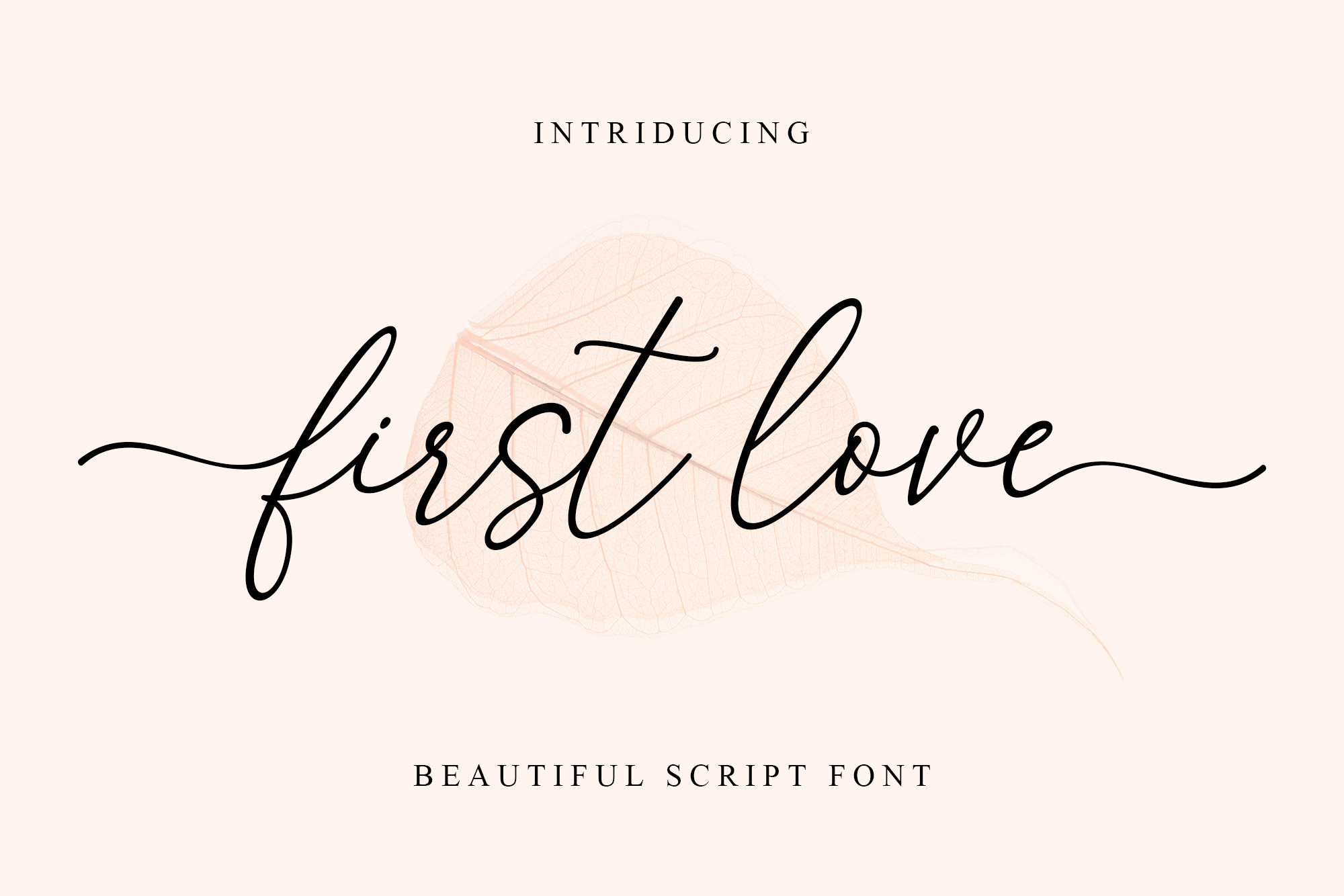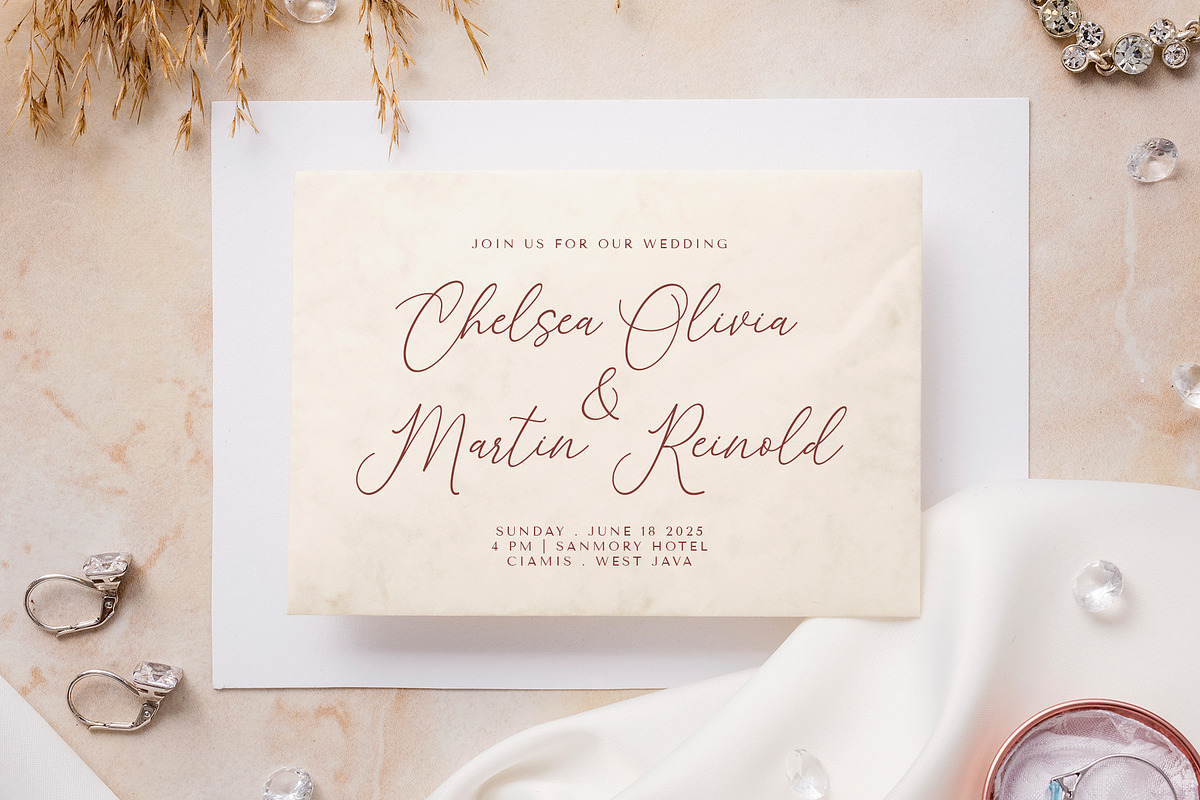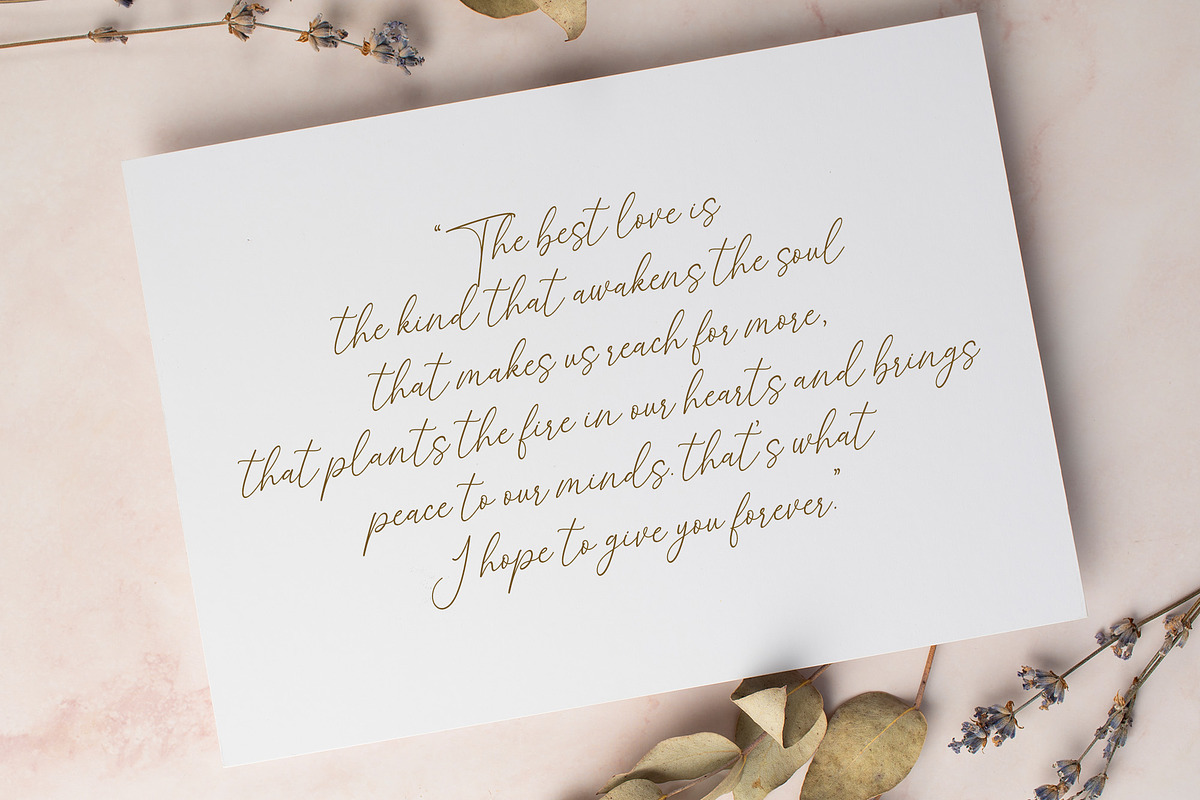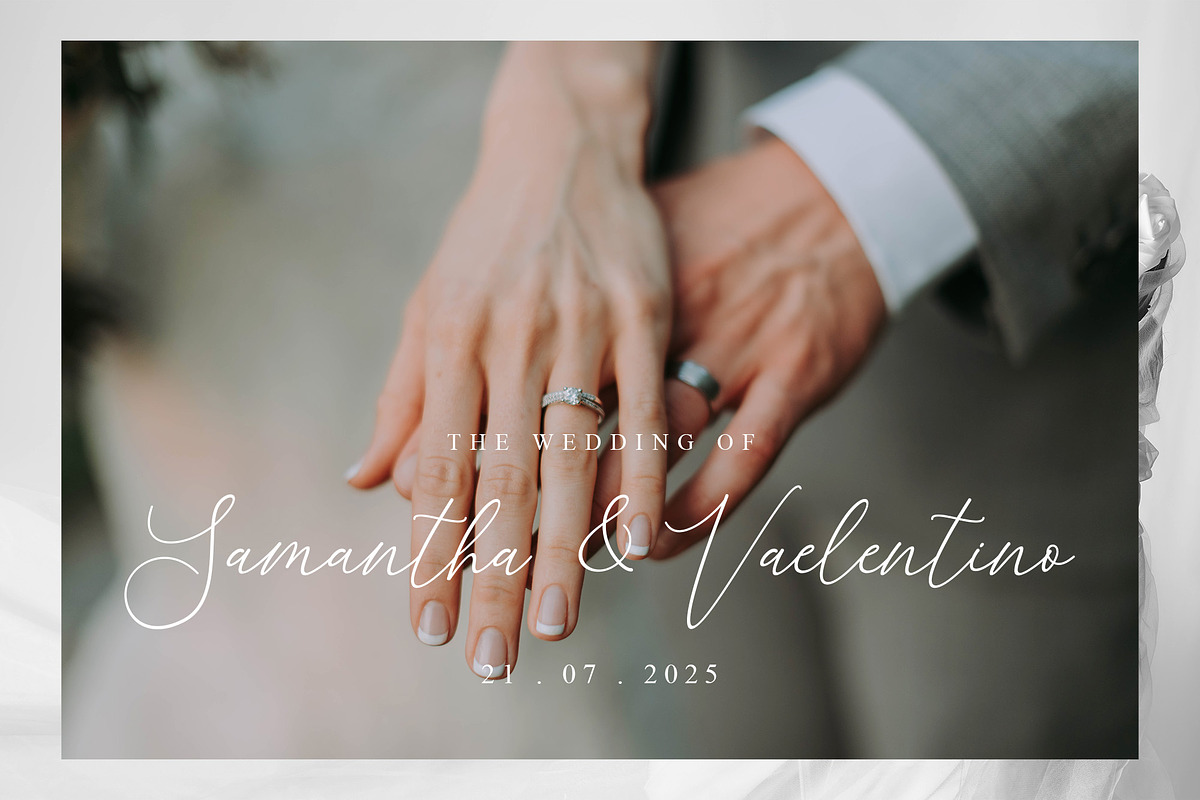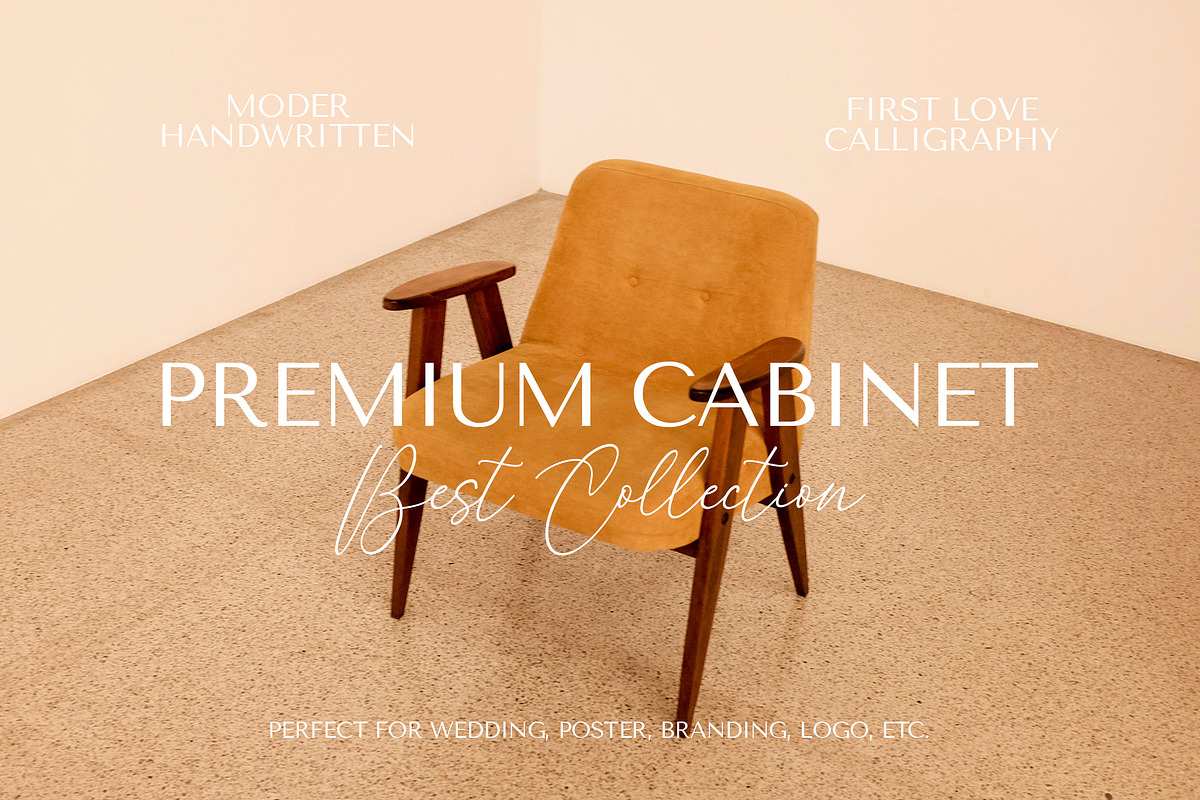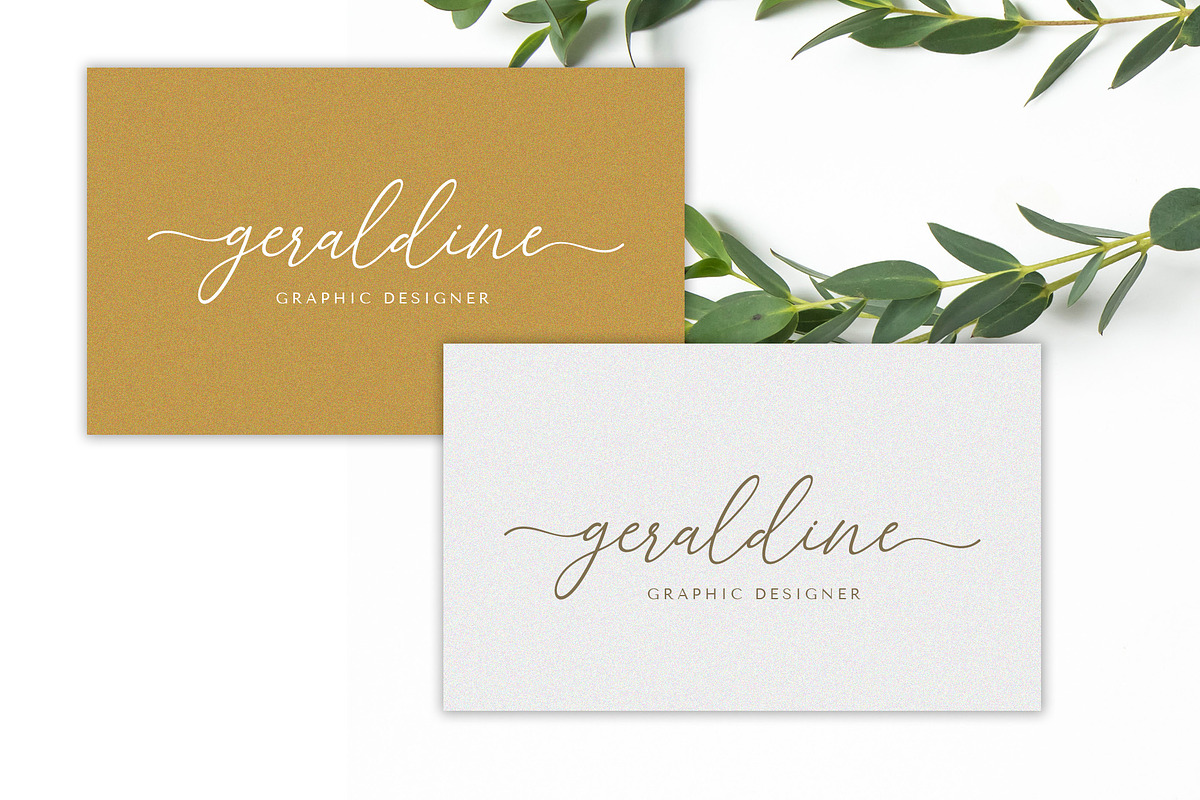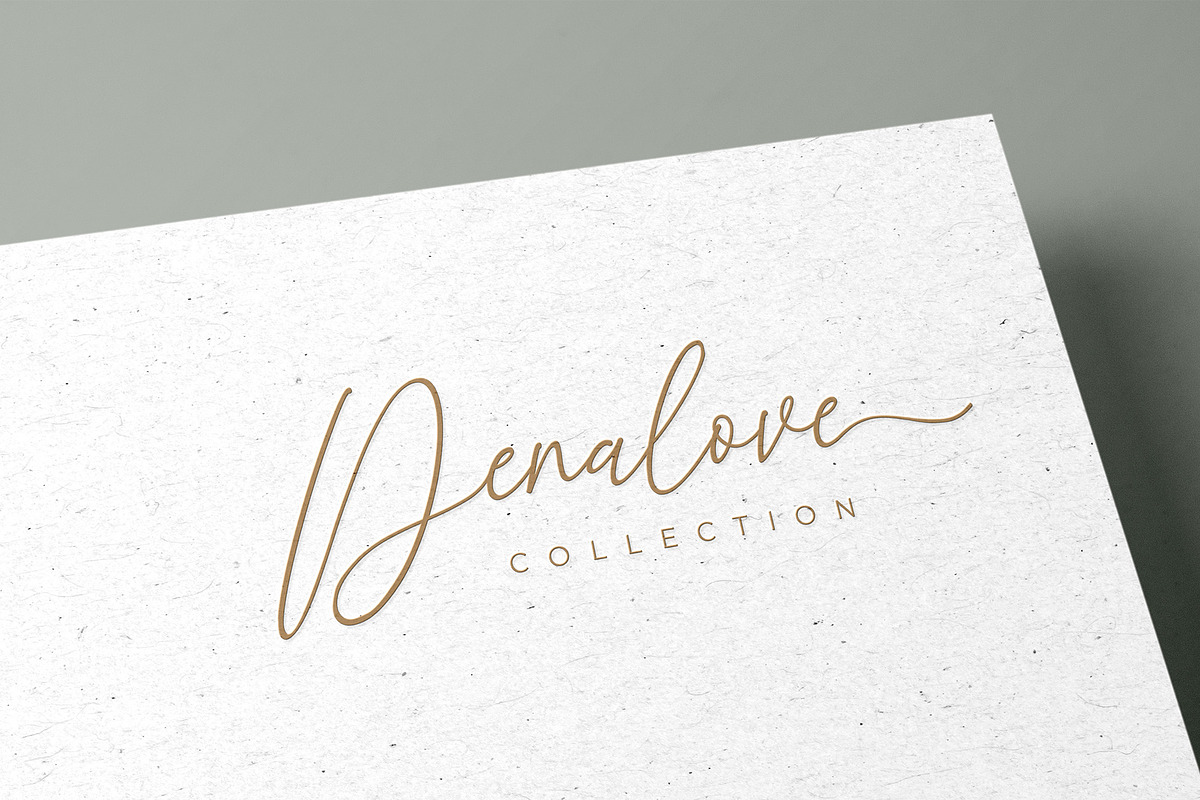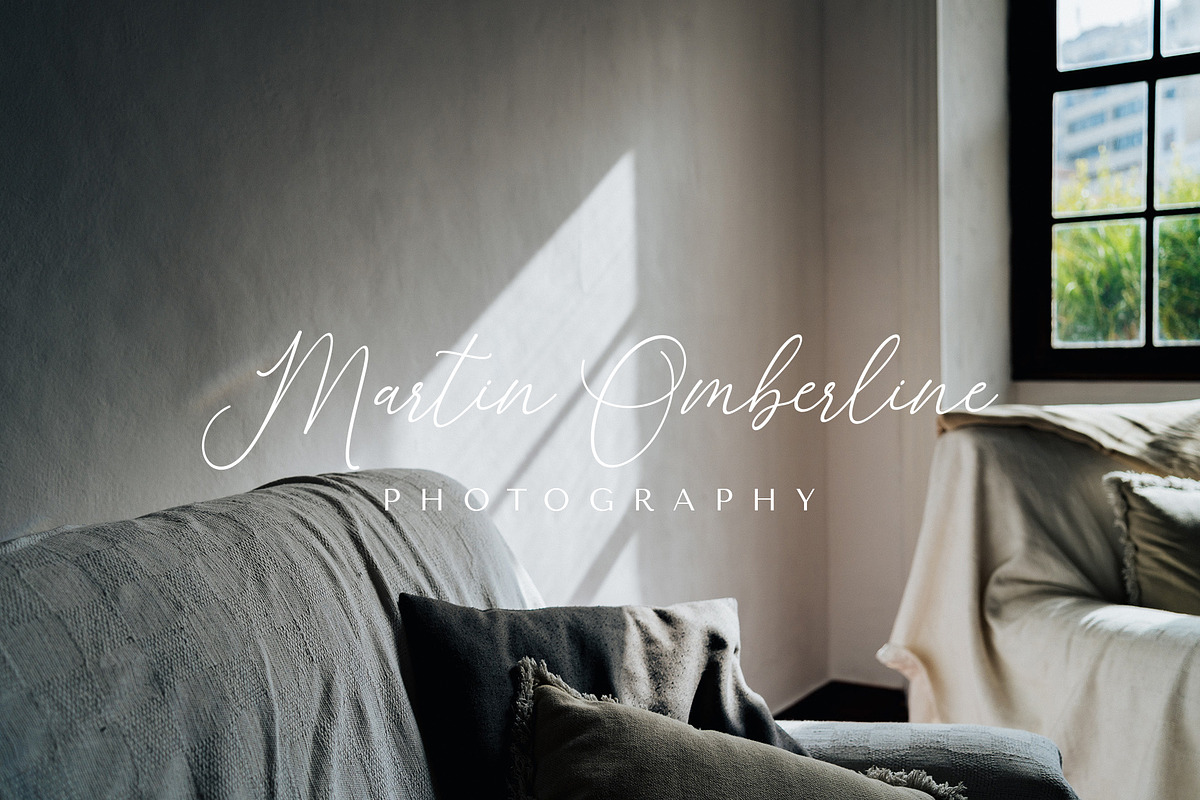
First Love-A Modern Script Font
"First Love" is a charming and modern script font designed for creative individuals who want to add a personal touch to their designs. This font is perfect for wedding invitations, social media posts, logos, and other design projects that require a touch of elegance and sophistication. With its smooth and flowing letterforms, "First Love" provides a unique and playful character set that will bring your designs to life.
The font features curling serifs and elegant ascenders that create a stunning visual impact. Its modern style combined with its easy readability makes it a great choice for any design project that requires a touch of class. The font is available in both TTF and OTF formats, making it easy to use in both digital and print designs.
"First Love" is a versatile font that can be used in a wide range of design projects, including wedding invitations, social media posts, logos, branding, posters, and more. The font is also ideal for personal use, such as creating scrapbooks, photo albums, and other keepsakes.
- Ligatures for a natural flow of letters
- PUA encoded characters for easy access to additional design elements
- Multilingual support for a range of languages